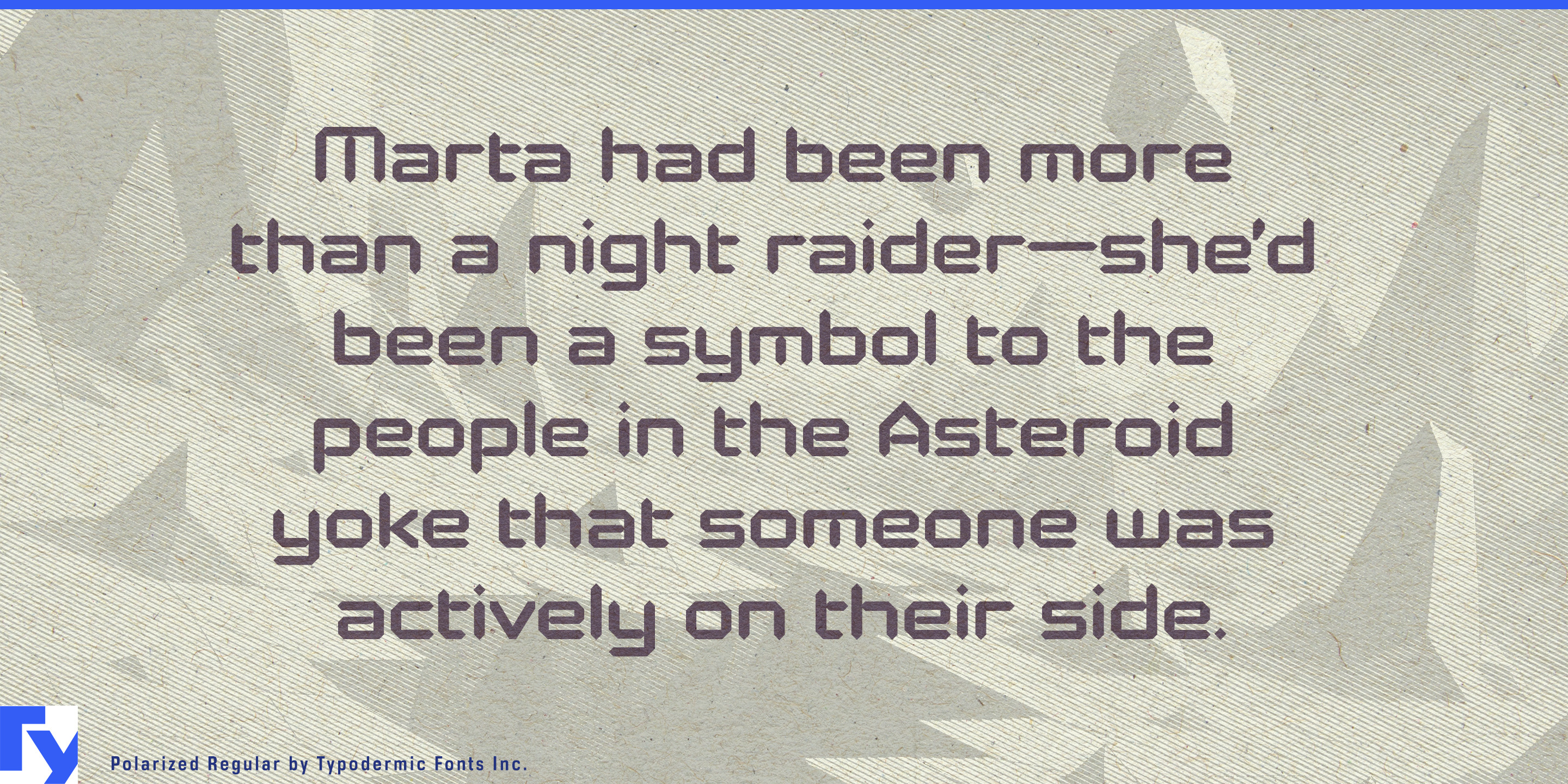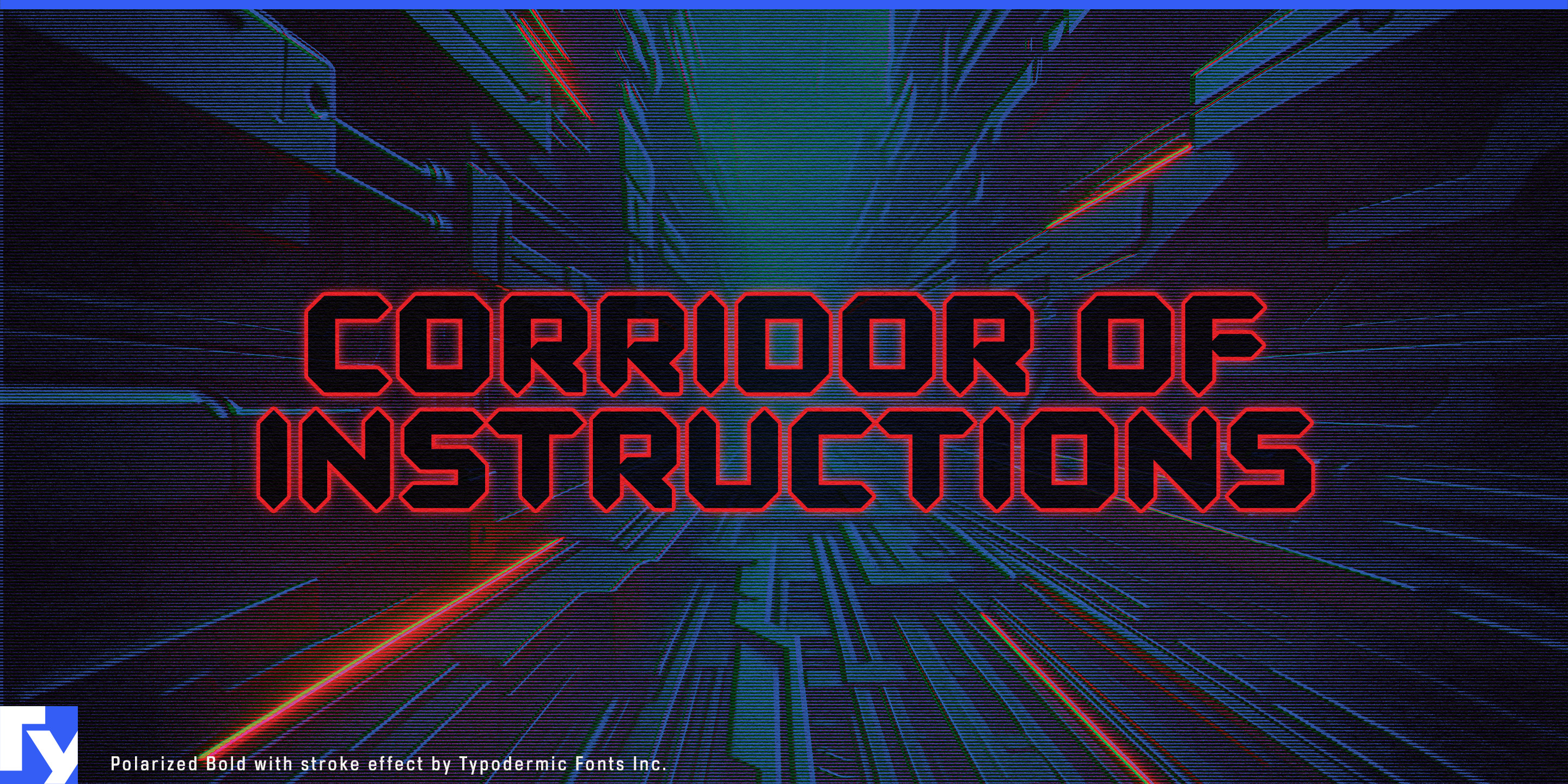
Polarized
A lot of contemporary technology revolves around live numbers: charging power, lap time, battery percentage, speed, watts, temperature, energy flow, distance, and remaining time. Literal segment-display lettering makes those values feel immediate, but it becomes awkward as soon as the designer needs actual language around them. Switch to an ordinary geometric sans and the words become easier to handle, but the connection to the measured data disappears.
Polarized bridges those two worlds. Its construction comes from segmented electronic lettering, but pointed stroke endings replace the blunt overlaps of conventional display segments. The result retains the visual logic of an LCD readout while behaving like a full mixed-case typeface. Numbers still look measured, timed, charged, or monitored; headings, product names, status words, and short phrases can belong to the same system.
Ultra-fast EV charging is a particularly strong fit. Charging screens and launch graphics revolve around kilowatts, battery percentage, kilowatt-hours, session time, and remaining charge. Polarized can carry those figures alongside words such as Charging, Available, Complete, Connector, and Maximum Power without making the interface look like a blown-up calculator. The same language can extend to charging-network identities, depot-charging demonstrations, megawatt truck-charging presentations, and trade-show displays.
Motorsport timing and telemetry provide another natural setting. Lap times, sector differences, speed, position, and live performance data need to be read quickly while still contributing to the visual identity of a broadcast or event. Polarized can handle timing towers, qualifying clocks, telemetry panels, pit-wall graphics, simulator overlays, and broadcast stat cards.
Connected training equipment uses the same vocabulary of measured values. Smart trainers, cycling computers, rowing machines, performance treadmills, and sports-science systems revolve around watts, cadence, split times, distance, heart rate, resistance, and interval countdowns. Polarized can give those numbers an instrument-like presence while keeping workout names, training zones, and mode headings visually connected.
Microgrids and distributed-energy systems turn another set of changing values into the center of the display: current generation, battery state of charge, site demand, imported and exported power, storage output, and system status. Polarized works naturally in energy-flow visualizations, public building-energy displays, battery-storage demonstrations, and solar-plus-storage graphics.
Test and measurement equipment extends the idea into laboratories and engineering. Battery cyclers, power analyzers, optical meters, environmental test systems, and data-acquisition equipment all generate values that should look like readings rather than ordinary text. Polarized can handle prominent measurements, mode names, test-result graphics, and instrument presentations while a quieter text face handles dense instructions and analysis.
Polarized is most useful when the number itself is part of the spectacle: a charging rate climbing, a lap time dropping, battery capacity changing, watts increasing, or energy moving through a system. It gives the language around those values the same measured electronic character instead of treating the readout and the words as unrelated visual systems.